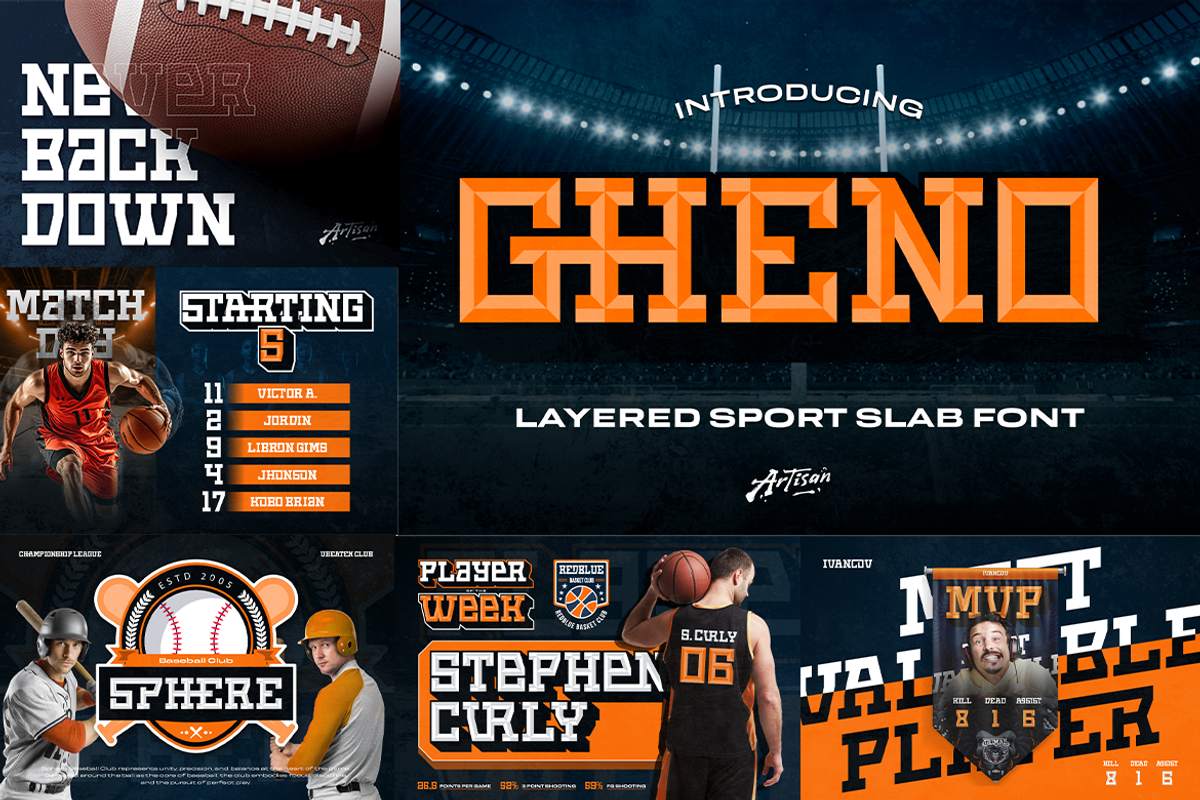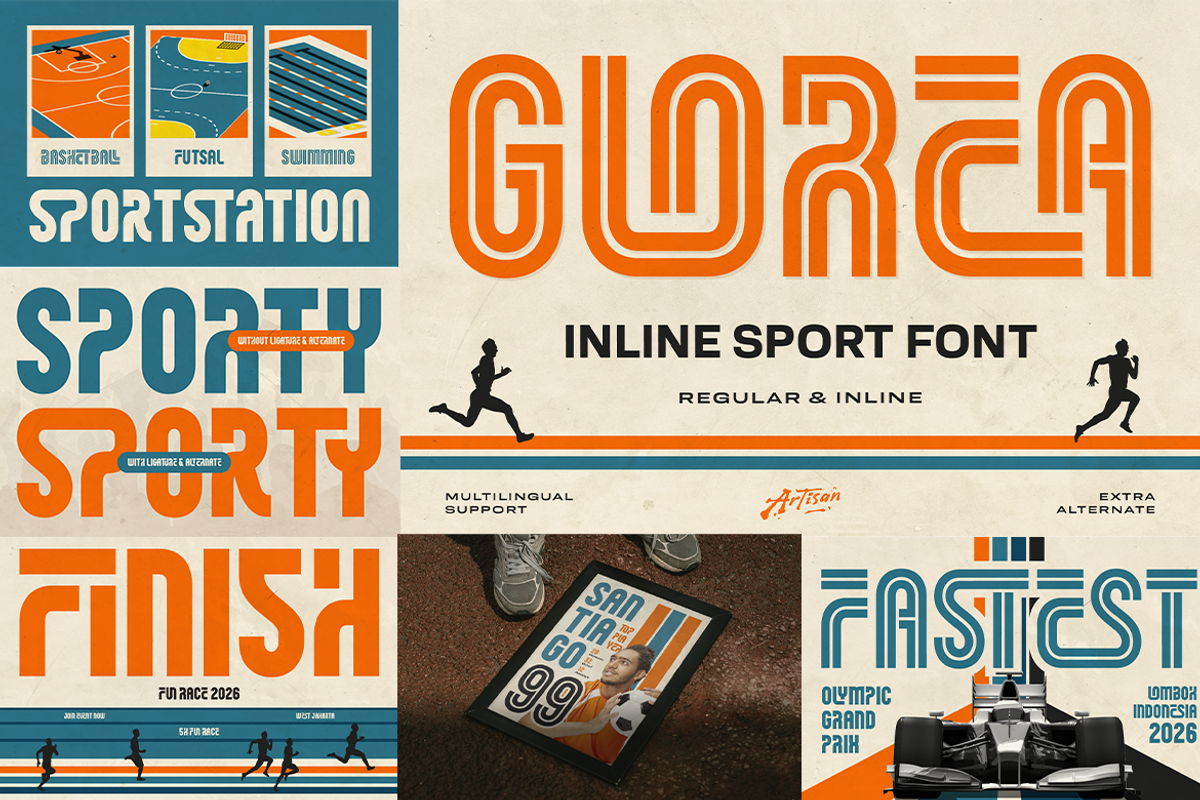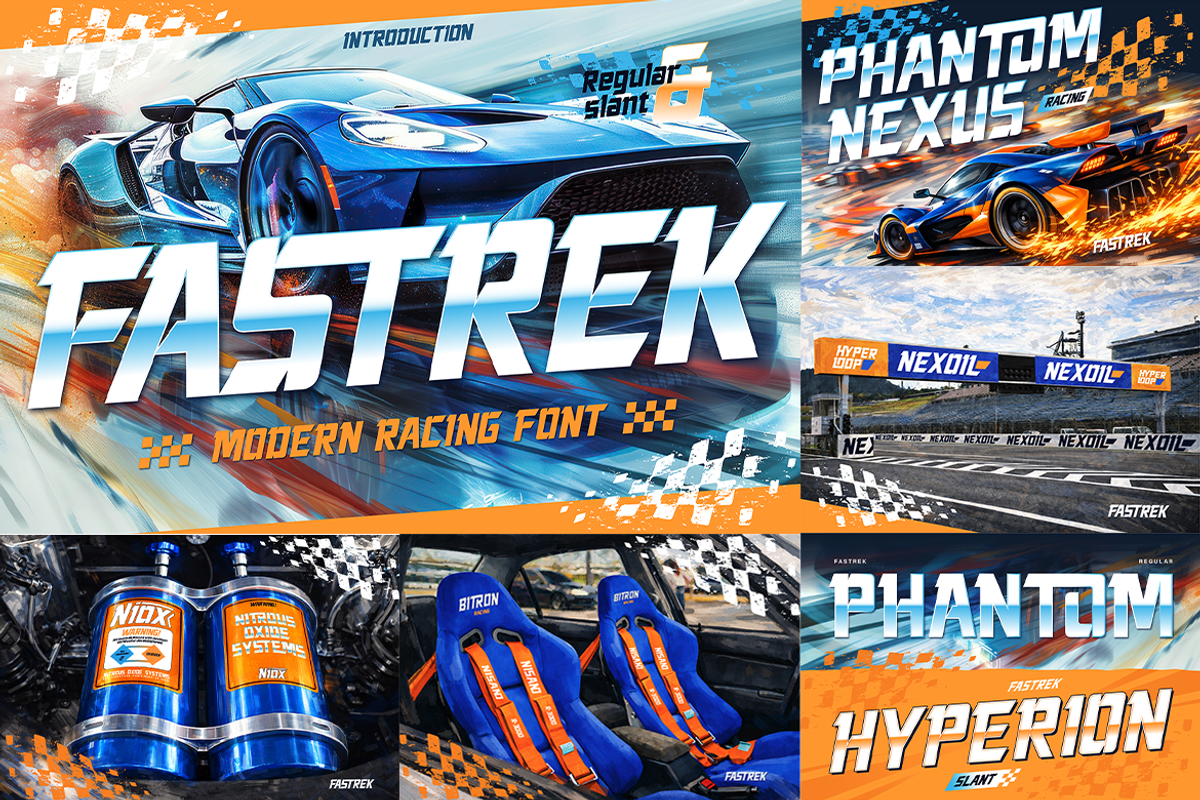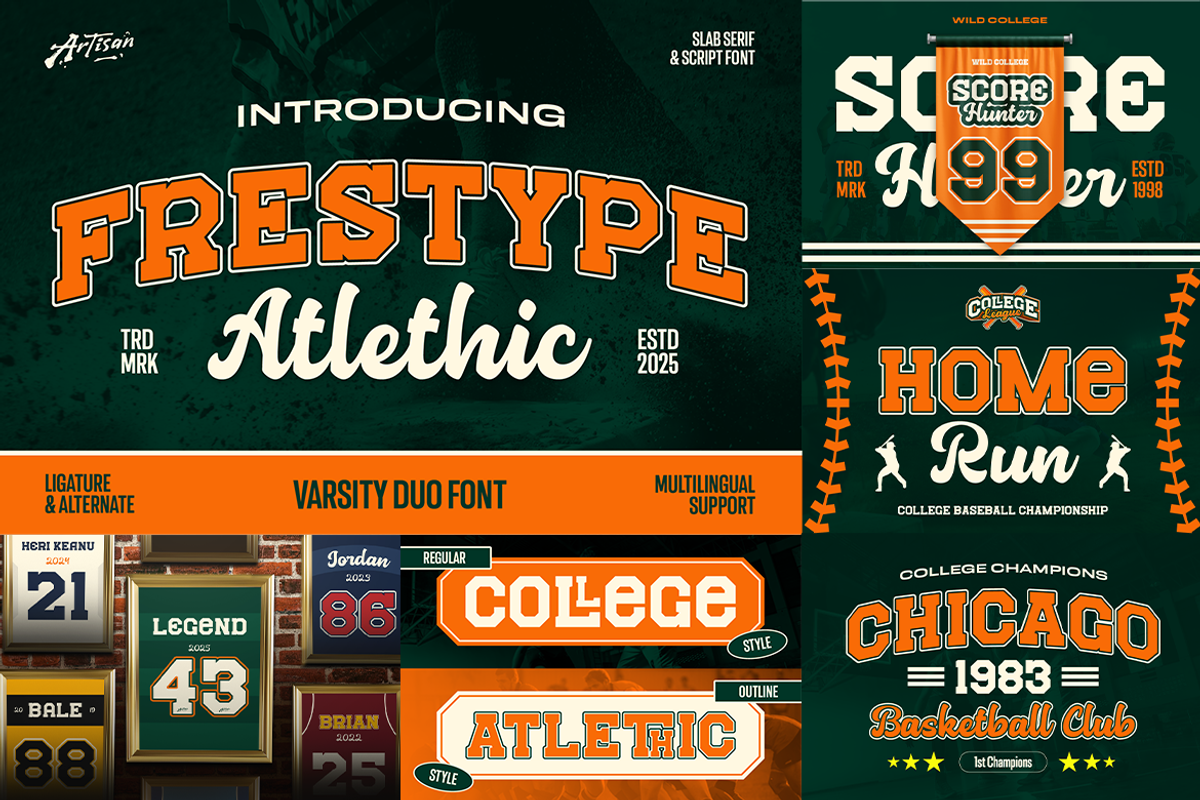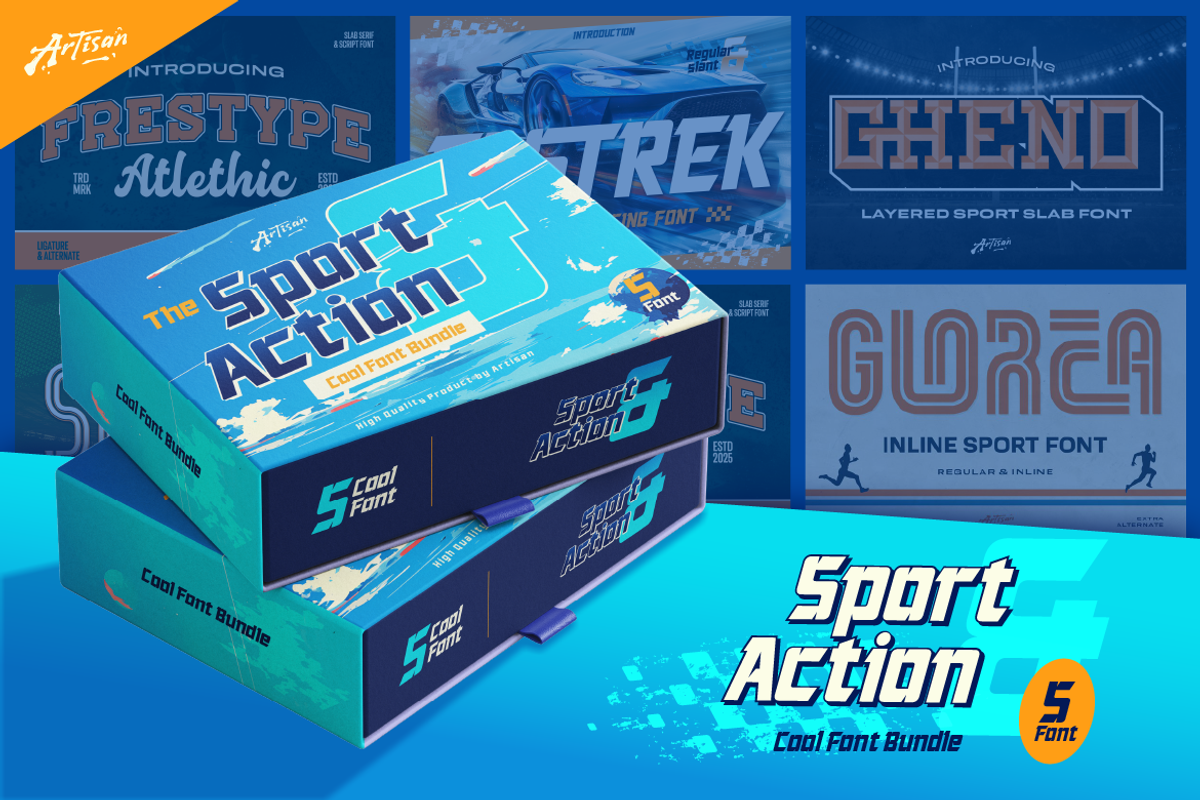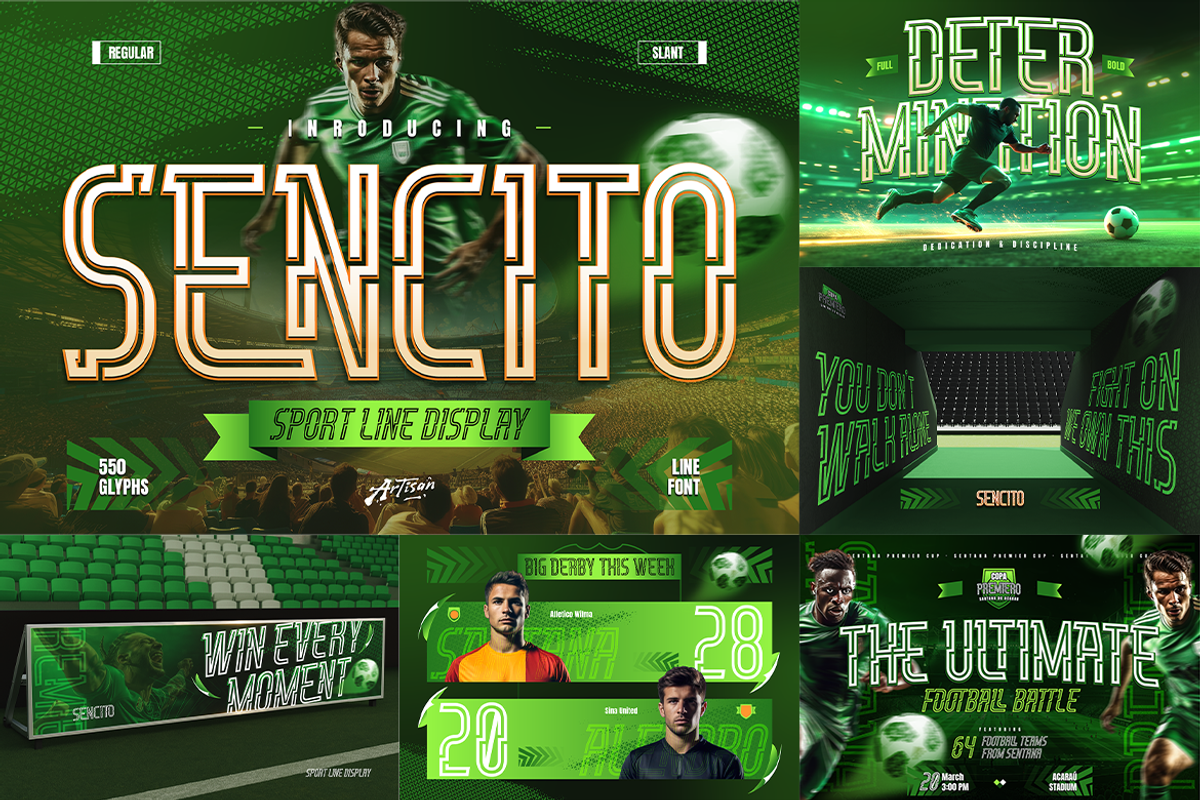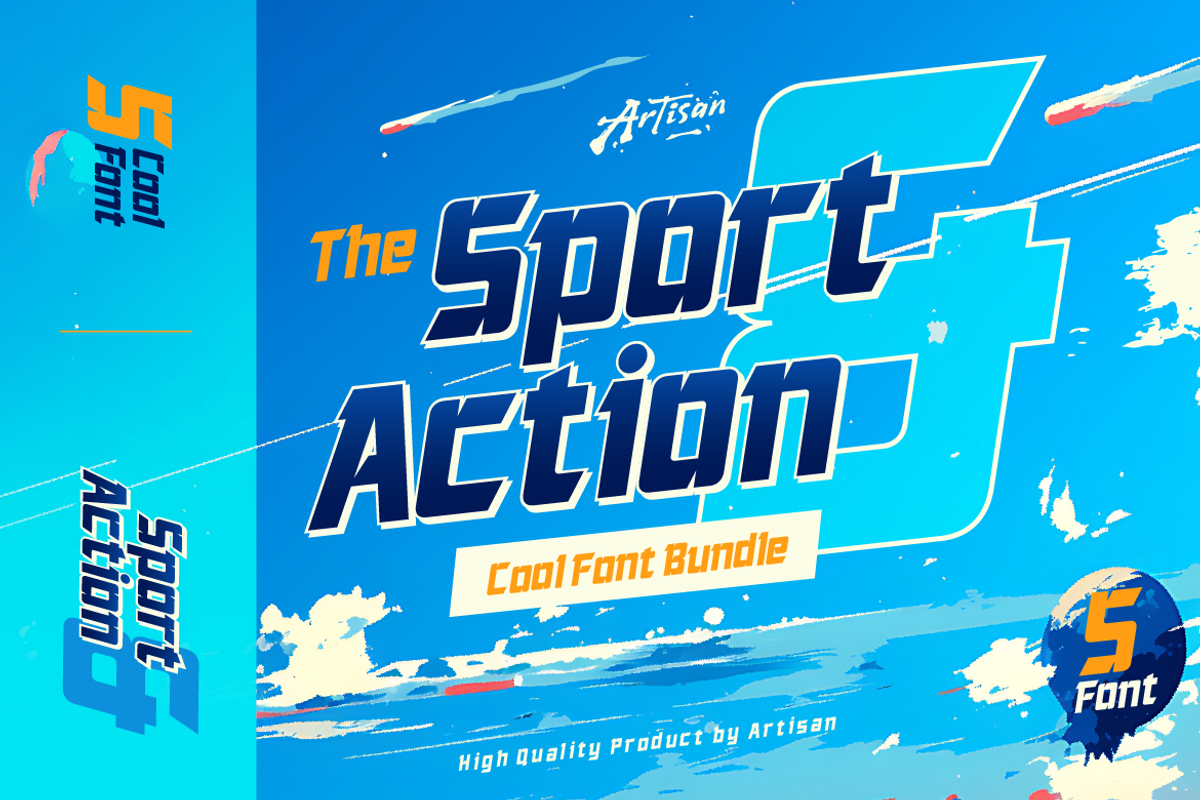
Sport and Action Font Bundle
Looking for fonts that bring energy, speed, and bold vibes into your design? Say hello to Sport and Action Font Bundle, a powerful collection made for anything sporty, dynamic, and full of action!
This bundle includes 5 high-quality fonts that are perfect for creating eye-catching visuals with a strong athletic feel:
- Fastrek – modern racing-style font with speed vibes
- Frestype Athletic – bold varsity font, perfect for sports branding
- Gheno – strong and structured display font
- Glorea – clean inline sport font with a modern touch
- Sencito – versatile sporty font with a cool attitude